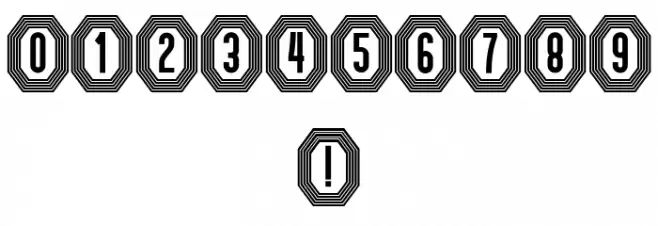
Capitalismo 12 Regular Font
Capitalismo 12 Regular Description
This font features a bold, geometric design with each character enclosed in a multi-layered octagonal border. The letters and numbers are centered within these borders, creating a striking visual effect. The style is reminiscent of Art Deco, with a modern twist that emphasizes symmetry and structure. The repeated lines within the octagons add depth and dimension, making it ideal for attention-grabbing designs. The font's unique structure makes it stand out, perfect for projects that require a bold statement.
A bold, geometric font with characters enclosed in multi-layered octagonal borders from Uncategorized fonts.